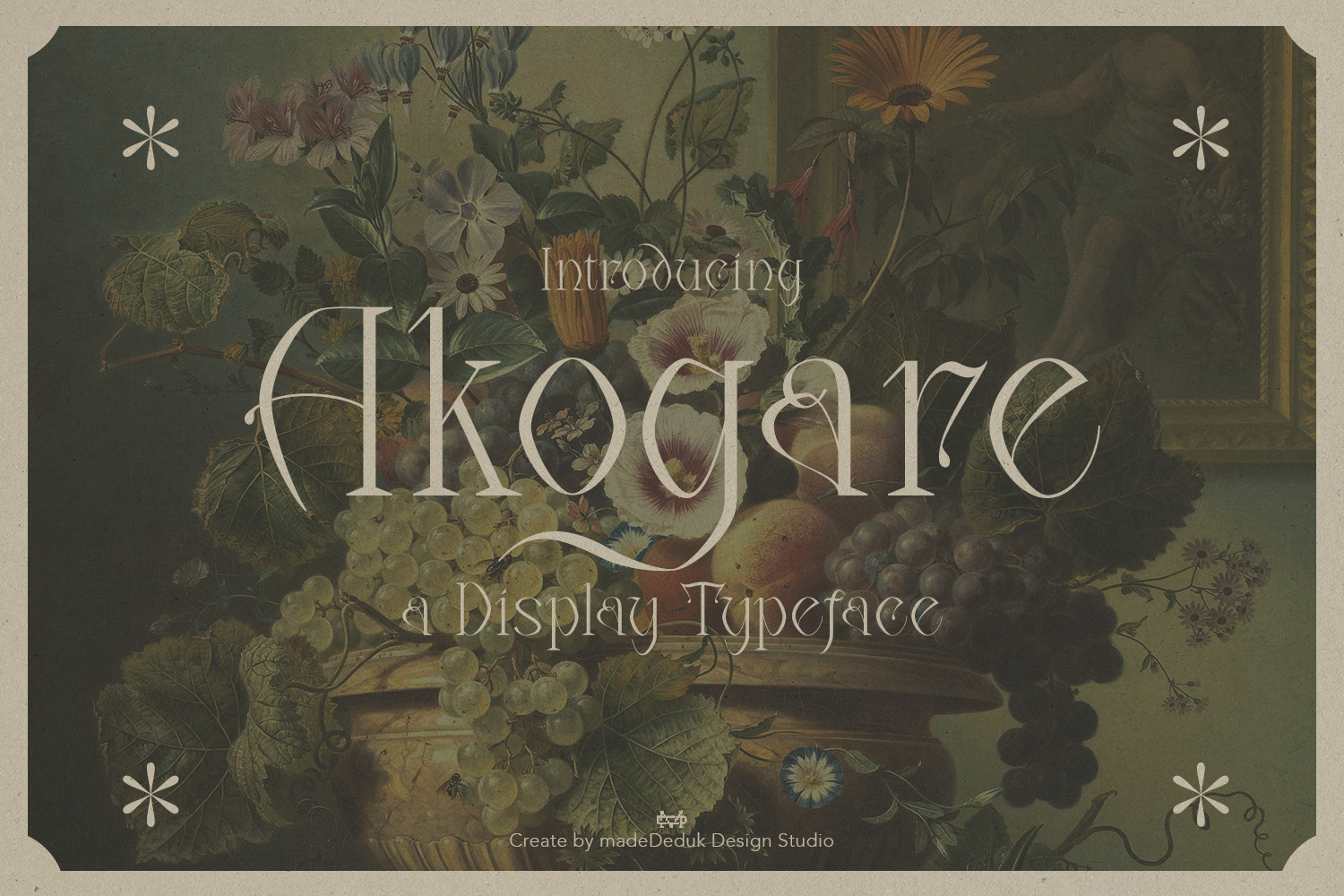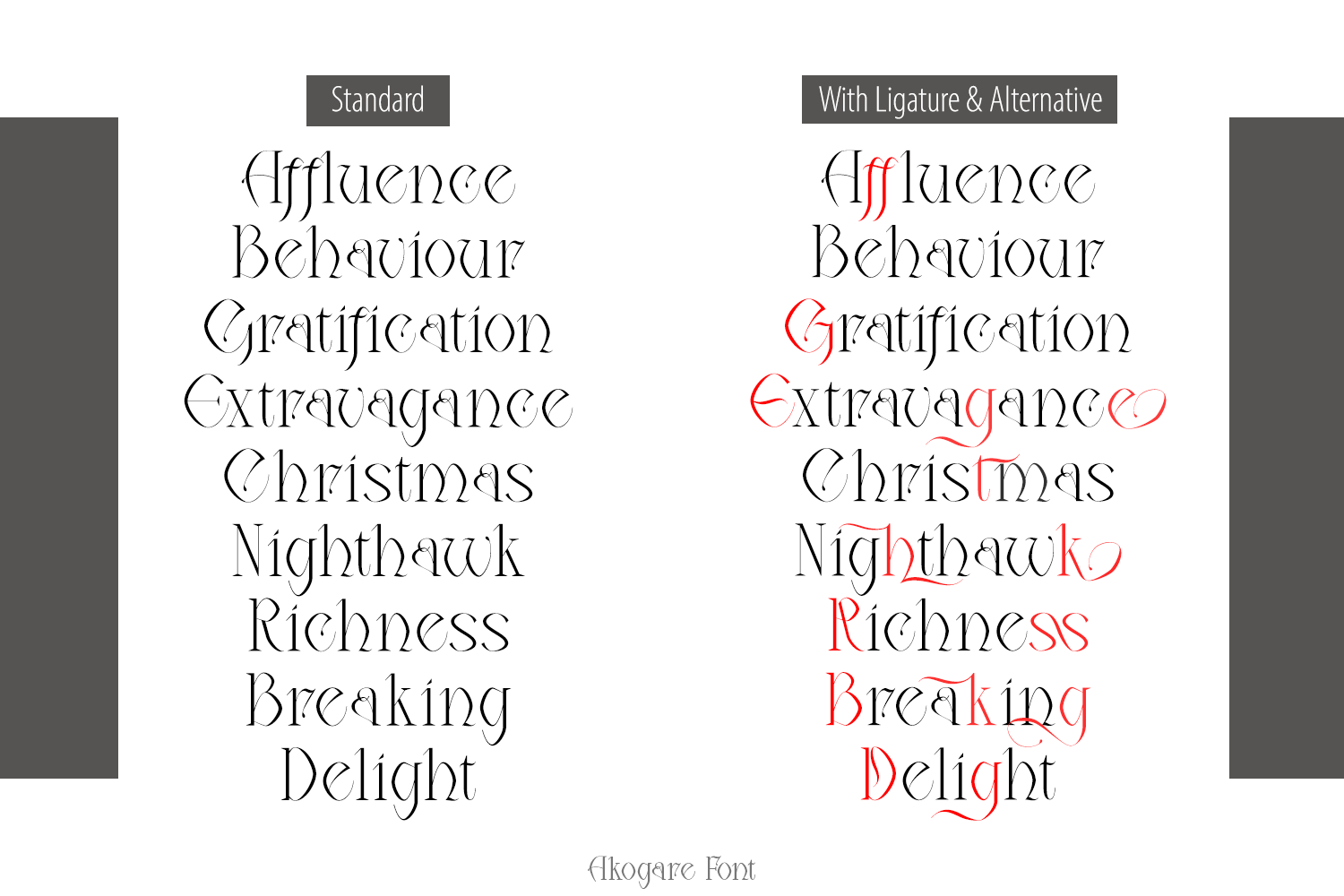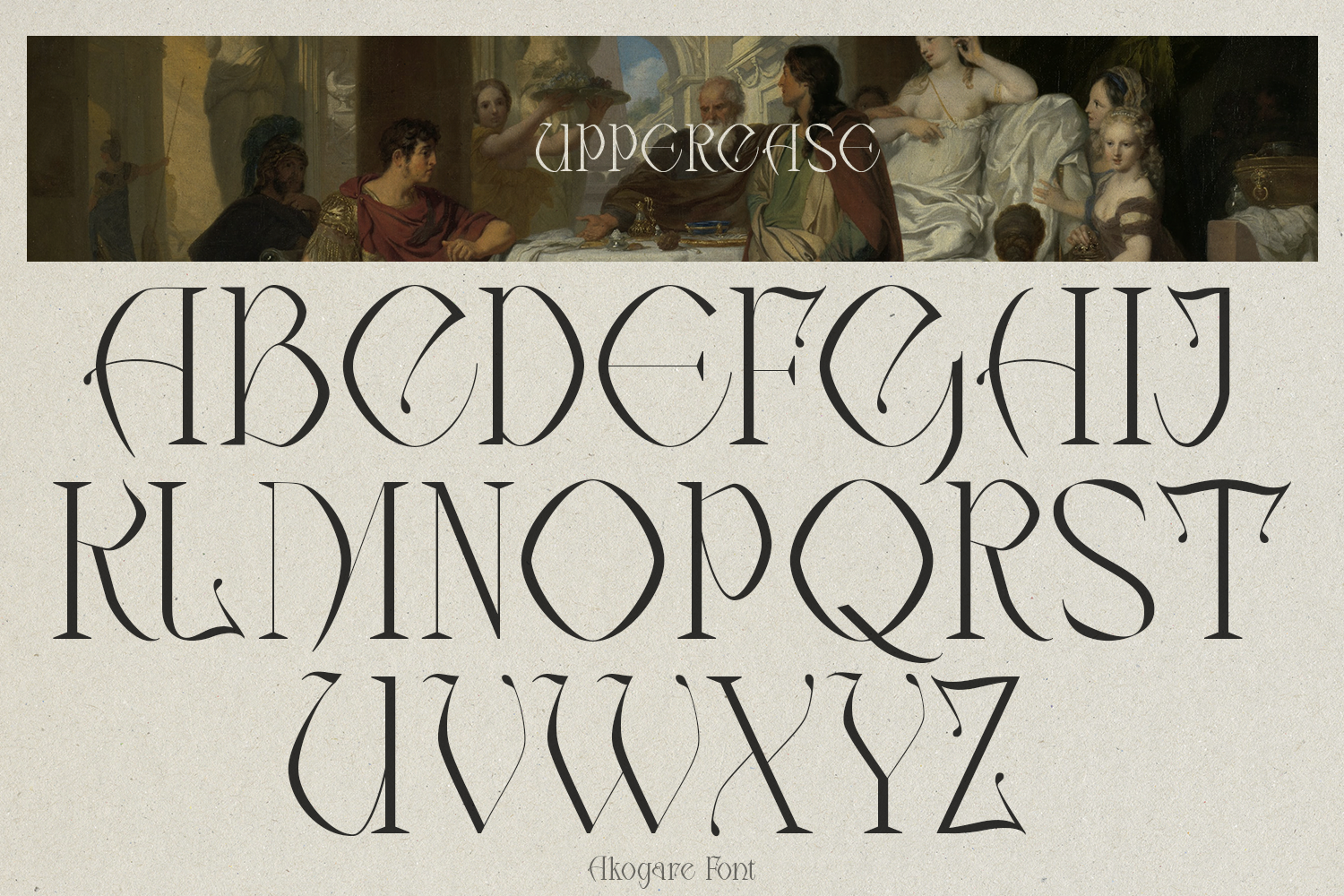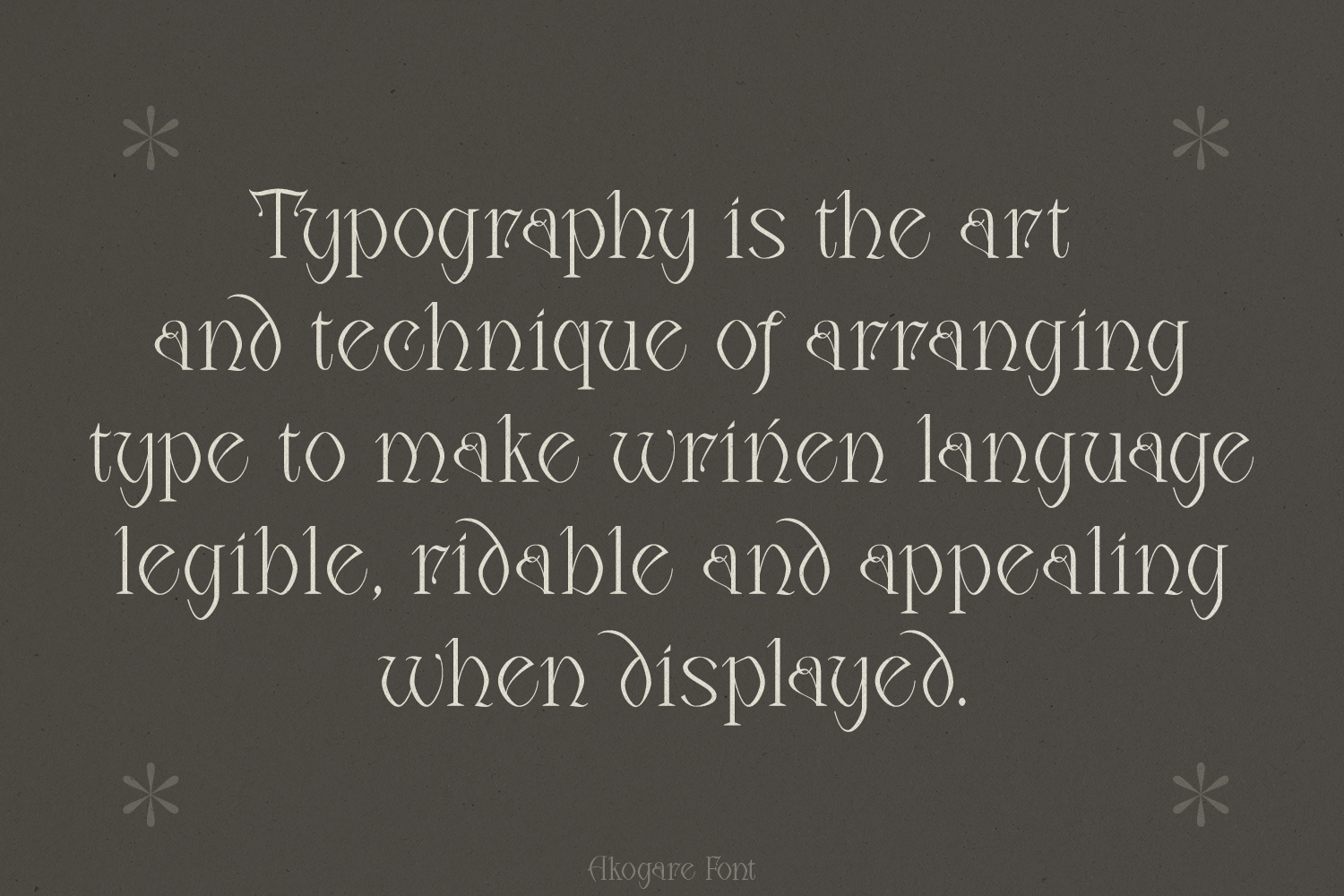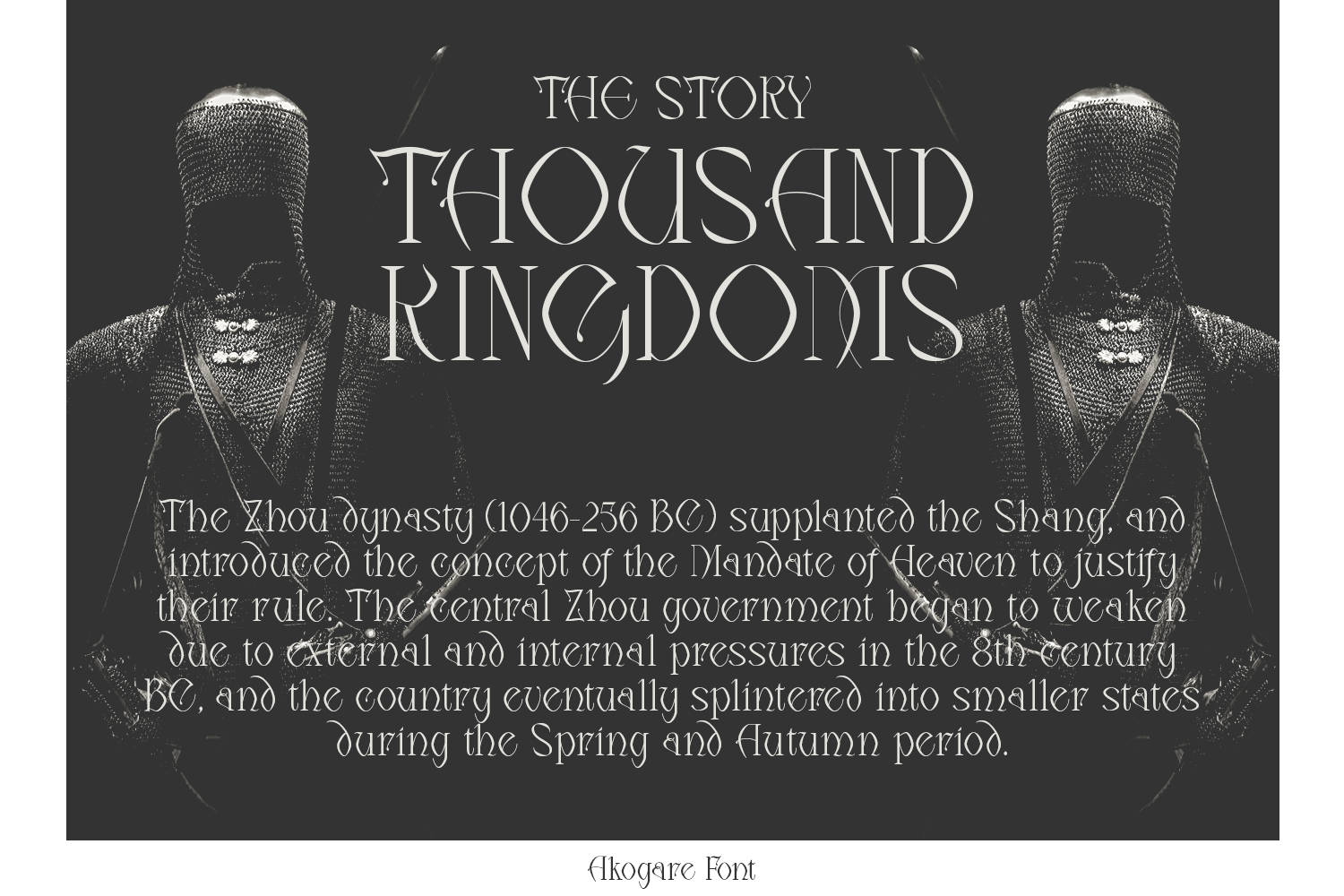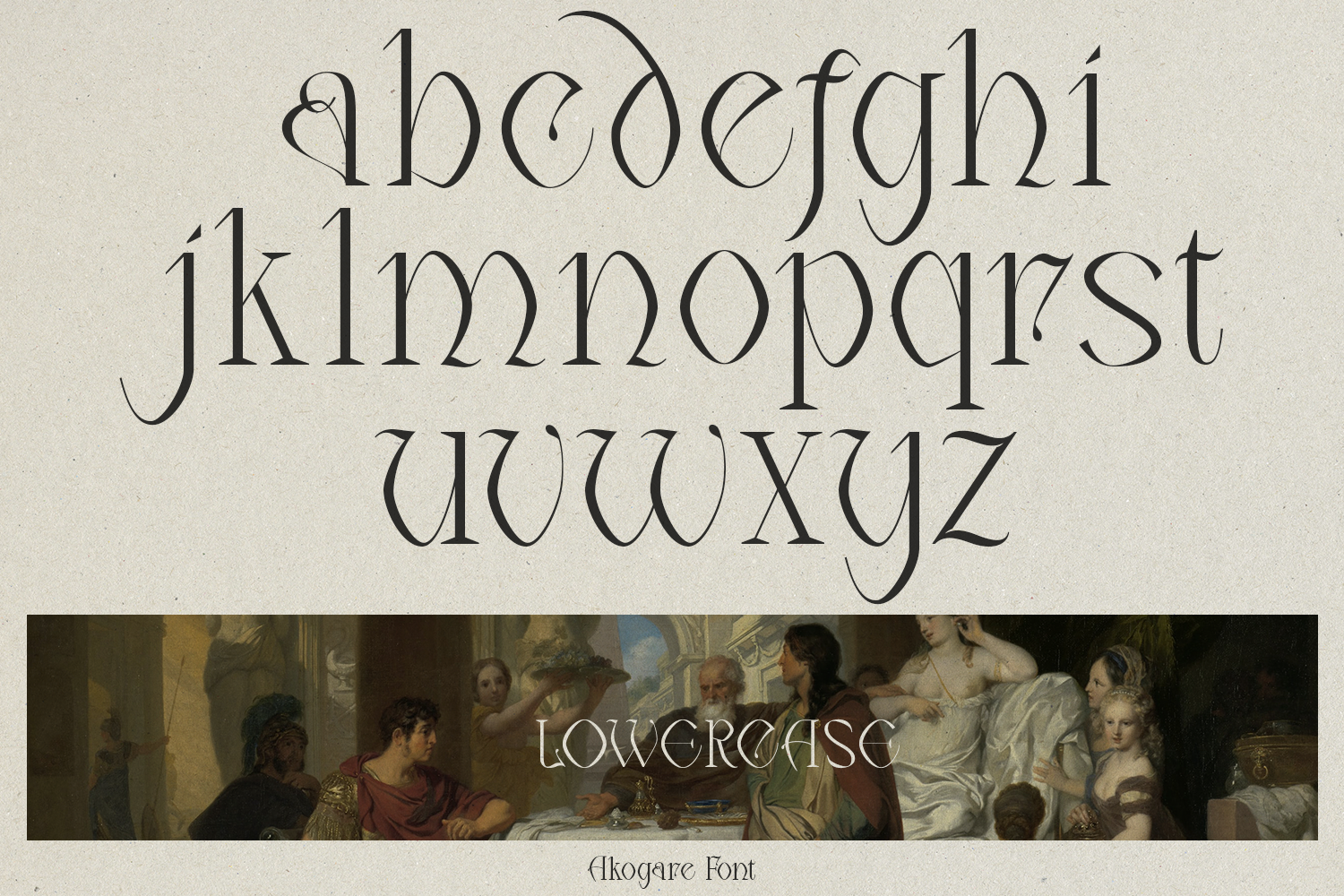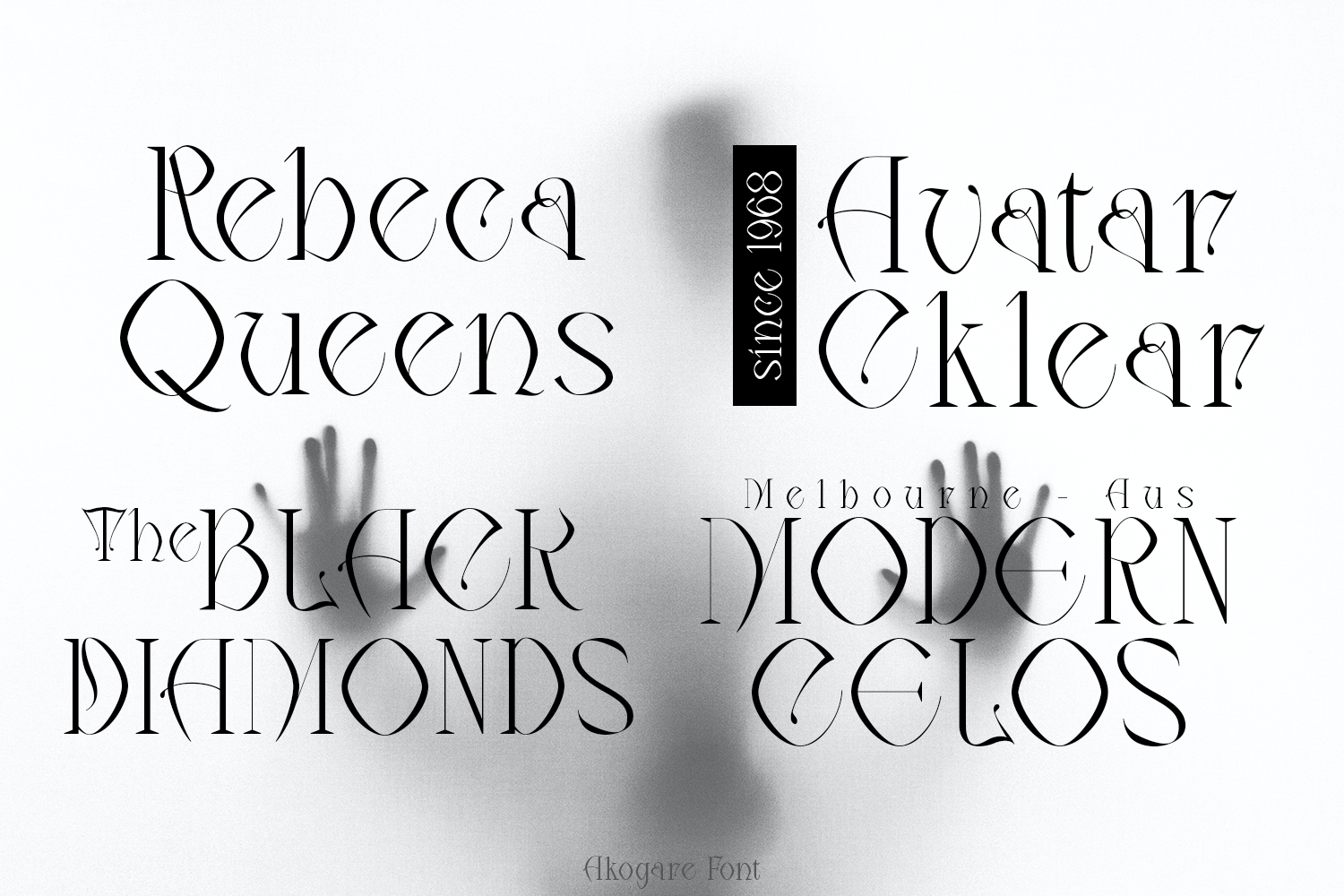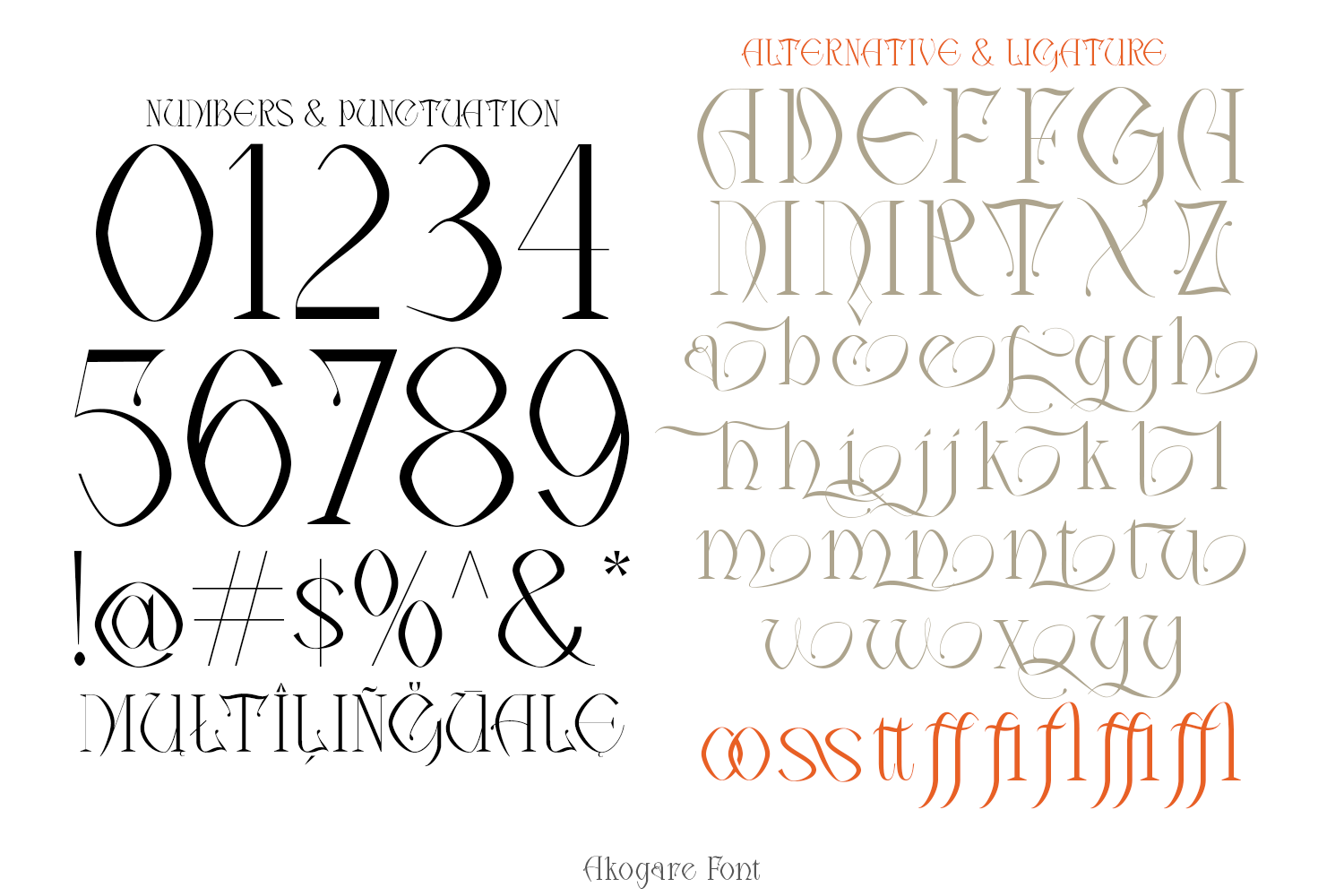
Akogare is a display font inspired by the empire era which will bring your project a strong and powerful touch. Browse through all the previews and get as inspired as I was when creating this font.
This font is very perfect for many display purposes in your product design if you want to a vintage and classic style, elegant and luxury. Such as book covers, product labels, logos badges, drink bottles, tattoo shop, coffee shops, fashion products, etc.
- Multilingual support
- Ligatures